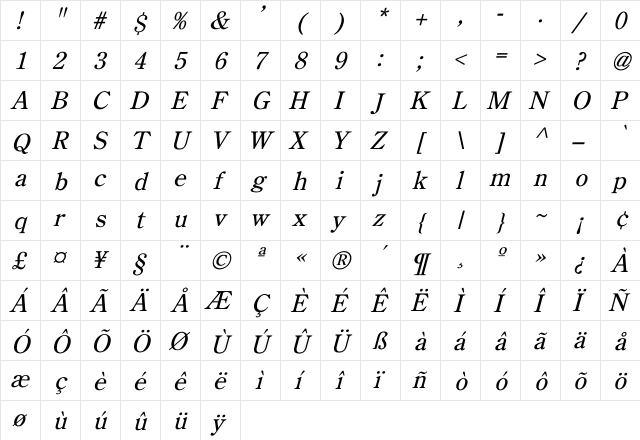
Beresford Thin Ital Italic Thin
Design Context for Beresford Thin Ital Typeface
Beresford Thin Ital is a composed and adaptable typeface that performs quietly and consistently across a wide range of design contexts. The dynamic lean of this cut emphasises speed and emphasis in any layout. The delicate stroke weight brings airiness and refinement to layouts.
Pro Tip: Use Beresford Thin Ital for emphasis, pull quotes, and subheadings where its slanted energy can add rhythm to the layout.